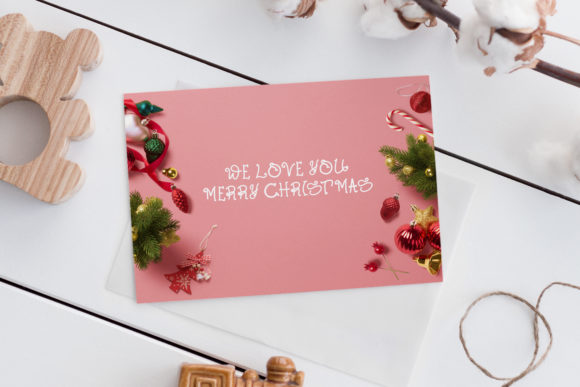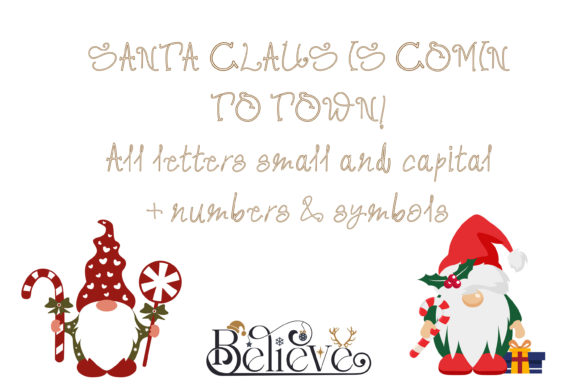
Best Santa Greetings Font: Add a Touch of Festive Flair to Your Designs
Are you looking for a font that captures the essence of the holiday season? Look no further than the Best Santa Greetings font! This charming and curly handwritten font is perfect for designers and crafters who want to add a touch of festive flair to their projects. In this article, we’ll take a closer look at the Best Santa Greetings font, its features, and how you can use it to make your designs shine.
What is Best Santa Greetings Font?
Best Santa Greetings is a beautiful, curly handwritten font that exudes a sense of festivity and joy. Its unique and playful design makes it perfect for a wide range of projects, from holiday cards and invitations to social media graphics and website headers. The font’s charming and whimsical feel is sure to capture the hearts of your audience and leave a lasting impression.
Key Features of Best Santa Greetings Font
- Charming and curly design: The Best Santa Greetings font features a beautiful, curly design that adds a touch of elegance and sophistication to your projects.
- Festive and lovely: The font’s festive and lovely design makes it perfect for holiday-themed projects, such as Christmas cards, invitations, and decorations.
- Handwritten feel: The font’s handwritten feel gives it a personal and unique touch, making it perfect for projects that require a human touch.
- Easy to read: Despite its curly design, the Best Santa Greetings font is easy to read, making it perfect for use in body text and headlines.
Why Choose Best Santa Greetings Font?
So, why choose the Best Santa Greetings font for your projects? Here are just a few reasons:
- Unique and eye-catching: The Best Santa Greetings font is unlike any other font out there. Its unique and eye-catching design is sure to grab the attention of your audience and leave a lasting impression.
- Festive and seasonal: The font’s festive and seasonal design makes it perfect for holiday-themed projects, such as Christmas cards, invitations, and decorations.
- Versatile: The Best Santa Greetings font is versatile and can be used in a wide range of projects, from digital designs to print materials.
How to Use Best Santa Greetings Font
Using the Best Santa Greetings font is easy! Here are just a few tips:
- Pair it with other fonts: The Best Santa Greetings font pairs well with other fonts, such as sans-serif fonts and script fonts. Experiment with different font combinations to find the perfect look for your project.
- Use it in headlines and body text: The font is easy to read, making it perfect for use in both headlines and body text.
- Add a personal touch: The Best Santa Greetings font’s handwritten feel makes it perfect for adding a personal touch to your projects.
Best Santa Greetings Font in Action
So, what can you create with the Best Santa Greetings font? Here are just a few ideas:
- Holiday cards and invitations: The font’s festive and lovely design makes it perfect for holiday cards and invitations.
- Social media graphics: The Best Santa Greetings font is perfect for social media graphics, such as Facebook posts and Instagram stories.
- Website headers: The font’s unique and eye-catching design makes it perfect for use in website headers and titles.
- Craft projects: The Best Santa Greetings font is perfect for craft projects, such as handmade cards and gift tags.
| Author | NinaGrateful |
In conclusion, the Best Santa Greetings font is a charming and curly handwritten font that is perfect for designers and crafters who want to add a touch of festive flair to their projects. Its unique and eye-catching design, festive and lovely feel, and ease of use make it a must-have font for any designer or crafter. So why wait? Download the Best Santa Greetings font today and start creating beautiful, festive designs that will leave a lasting impression on your audience!